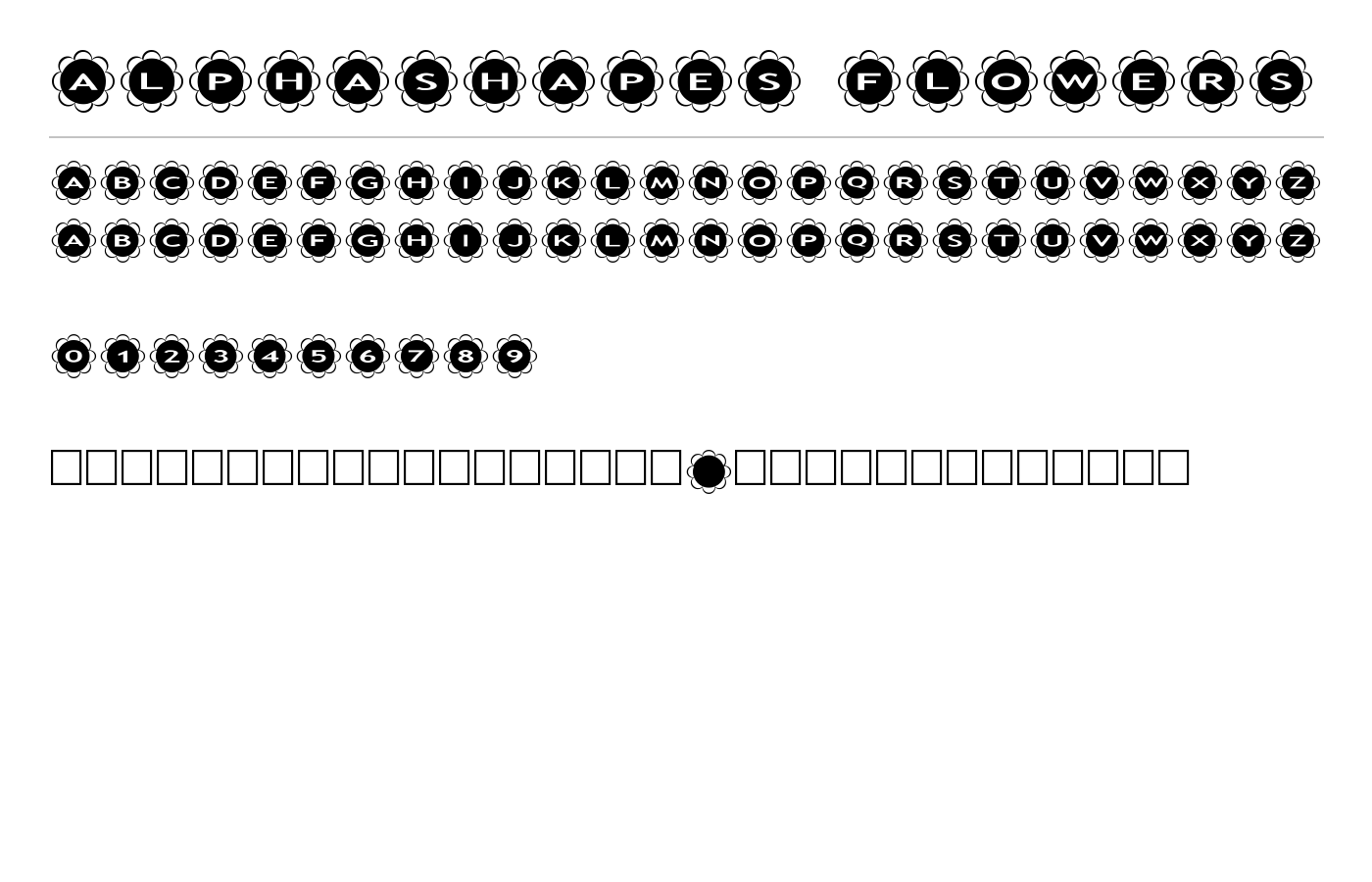
AlphaShapes Flowers is a playful decorative font featuring bold, uppercase letters enclosed within stylized flower shapes, creating a fun and eye-catching design. Its whimsical, retro-inspired style works best for creative projects such as craft branding, children’s materials, and lively event posters where a cheerful and unique look is desired. This font stands out in headlines and logos, adding a joyful, friendly character to any design.
AlphaShapes flowers Font
About AlphaShapes flowers Font